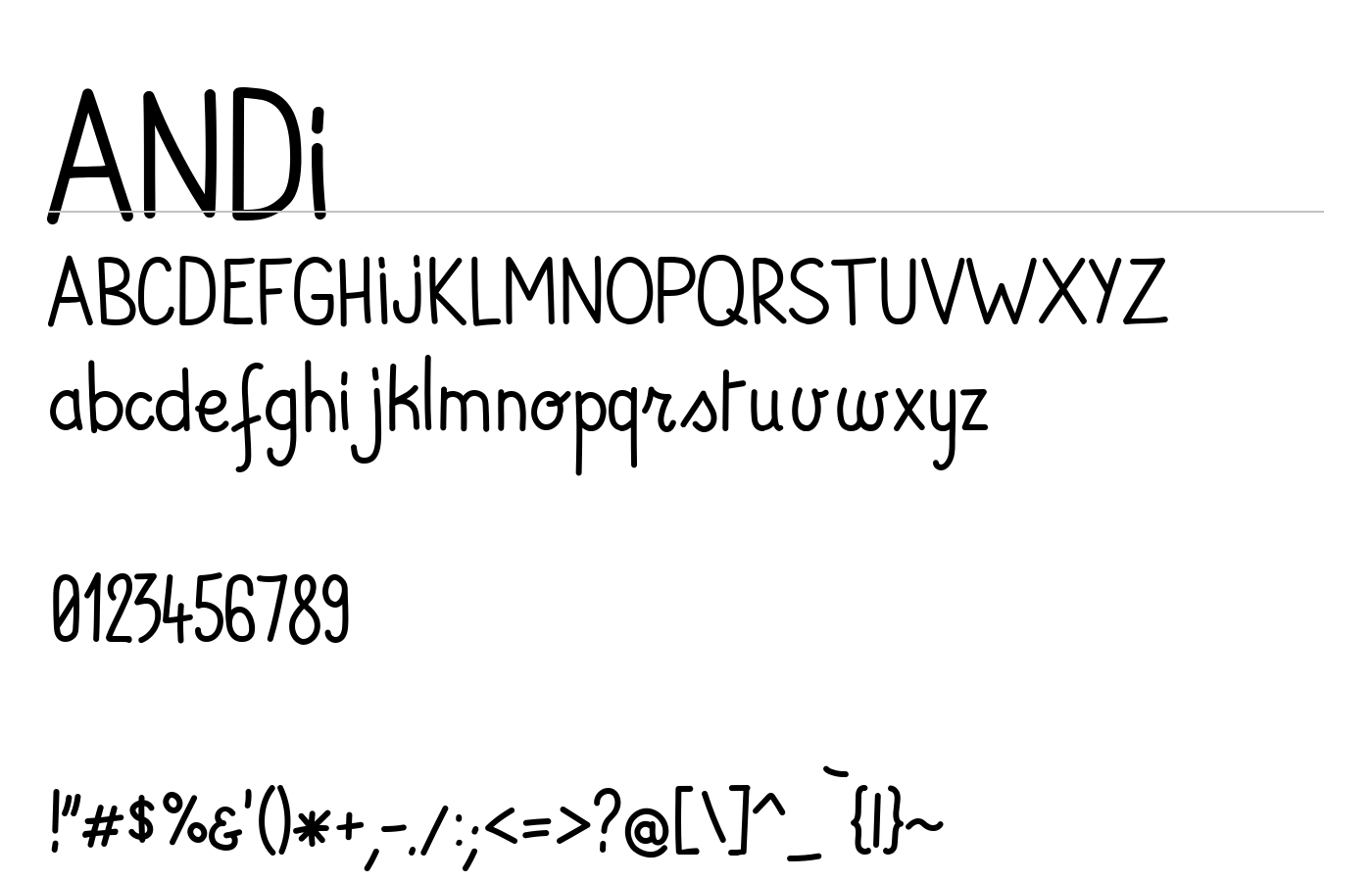
ANDi is a playful and casual handwritten sans serif font with a light weight and narrow width that gives it a friendly, approachable look. Its tall, slightly irregular letterforms with single-story a and g, combined with subtle quirky details, make it ideal for informal designs, children's projects, and creative branding that seeks a personal touch. This font works well in logos, posters, and web use where warmth and individuality are key.
ANDi Font
About ANDi Font
| Font family | ANDi Font |
| Designer | Benoît Champy |